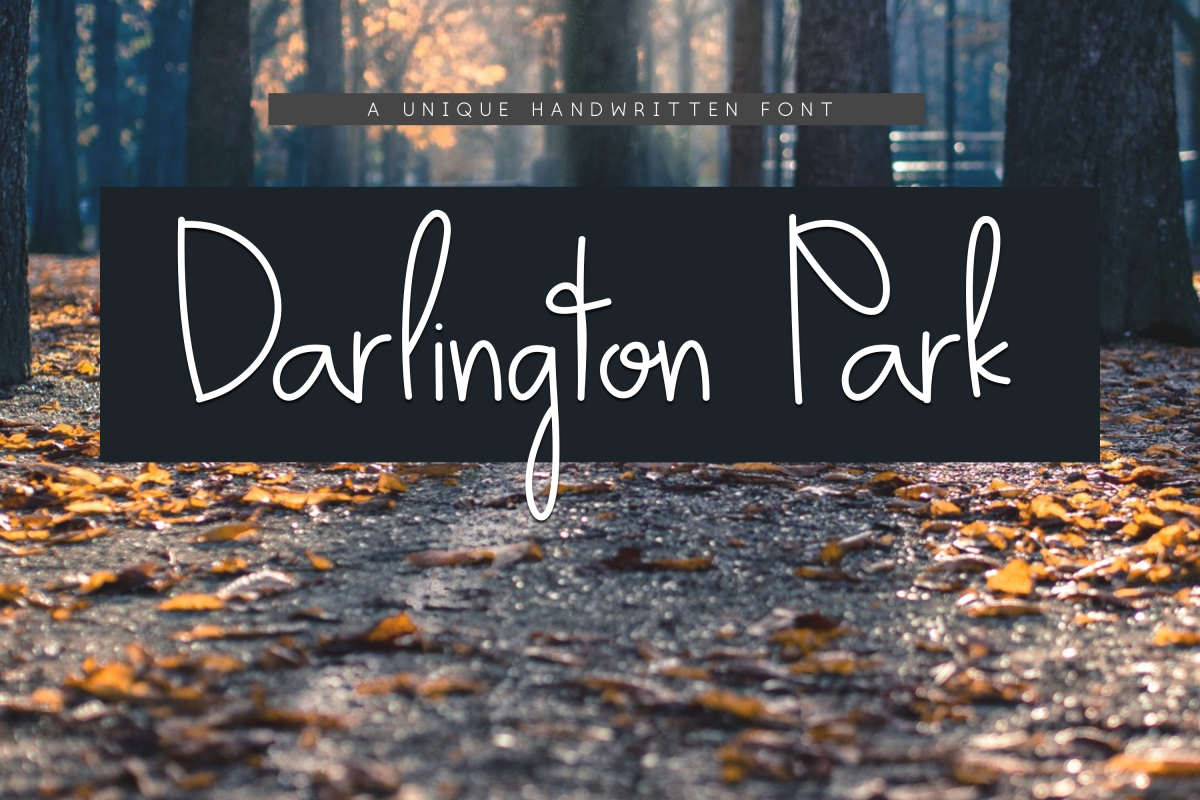
Darlington Park - Unique Handwritten Font
Darlington Park is a unique handwritten font.
This font is perfect for quotes, headings, blogs, logos, invitations and more!
This font does include accent characters